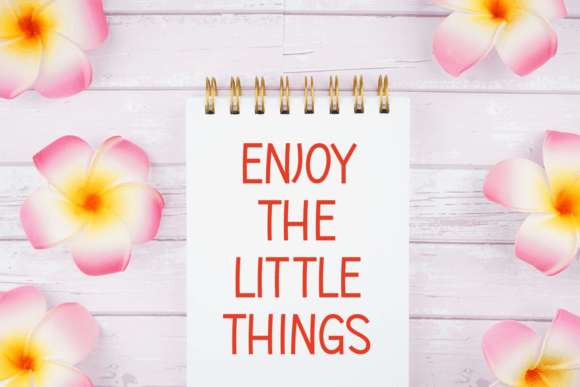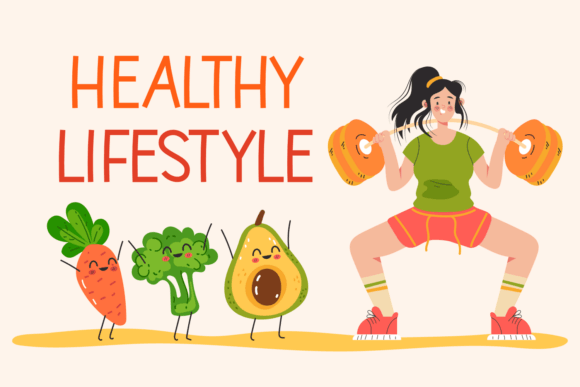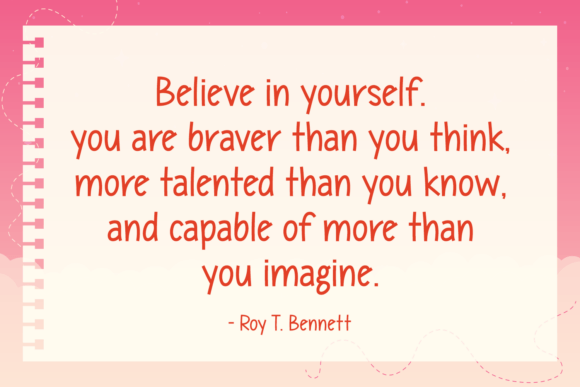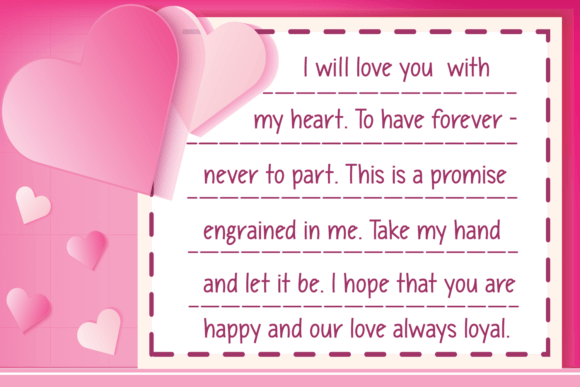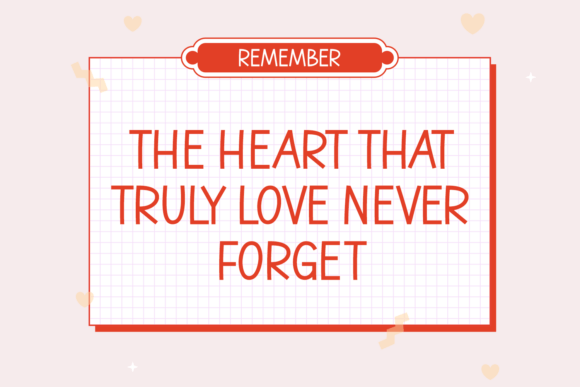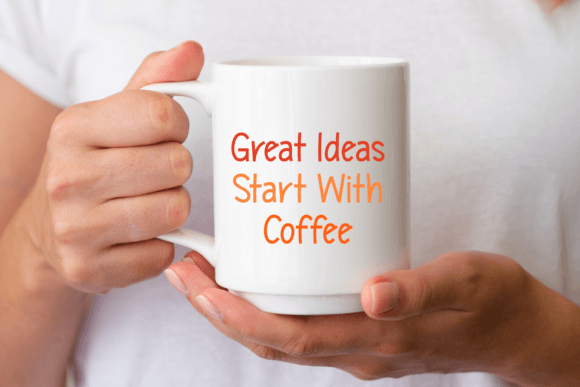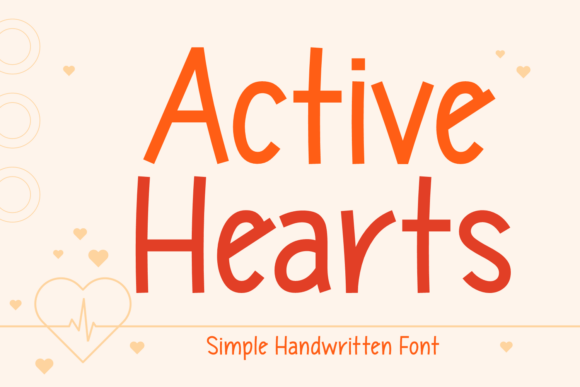
Introducing Active Hearts Font: The Perfect Blend of Friendliness and Playfulness
Are you tired of using the same old fonts for your personal projects, social media posts, and designs? Look no further than Active Hearts Font, a charming and versatile handwritten font that’s sure to bring joy and personality to your creations. With its smooth, flowing lines and warm, approachable style, Active Hearts Font is the perfect choice for anyone looking to add a touch of whimsy and friendliness to their work.
The Characteristics of Active Hearts Font
Active Hearts Font is a friendly handwritten font that’s designed to evoke a sense of casual, playful vibes. Its smooth, flowing lines give it a natural, effortless feel that’s perfect for creating designs that are approachable and relatable. The font’s warm and inviting style makes it ideal for use in personal projects, social media posts, and heartfelt designs.
One of the standout features of Active Hearts Font is its versatility. Whether you’re creating a blog post, a social media graphic, or a handmade craft, this font is sure to adapt to your needs. Its playful, cursive style adds a touch of personality to any design, making it perfect for crafters, designers, and anyone looking to add a bit of flair to their work.
Why Choose Active Hearts Font?
So why choose Active Hearts Font over other fonts on the market? For starters, its unique blend of friendliness and playfulness makes it a standout choice for anyone looking to create designs that are both approachable and visually appealing. Additionally, the font’s smooth, flowing lines make it easy to read, even at smaller sizes.
Perfect for Personal Projects and Designs
Active Hearts Font is perfect for a wide range of personal projects and designs, from handmade crafts to social media graphics. Its playful, cursive style adds a touch of whimsy to any design, making it ideal for:
- Handmade crafts, such as scrapbooking and card-making
- Social media graphics, including Facebook posts and Instagram stories
- Personal blog posts and articles
- DIY projects, such as signs and wall art
Whether you’re creating something for personal use or as a gift for a friend, Active Hearts Font is sure to bring a touch of joy and personality to your designs.
Tips for Using Active Hearts Font
To get the most out of Active Hearts Font, here are a few tips to keep in mind:
- Use it in combination with other fonts to create visual interest and contrast
- Experiment with different colors and textures to add depth and dimension to your designs
- Don’t be afraid to get creative and try new things – Active Hearts Font is a versatile font that’s perfect for experimenting with different design styles